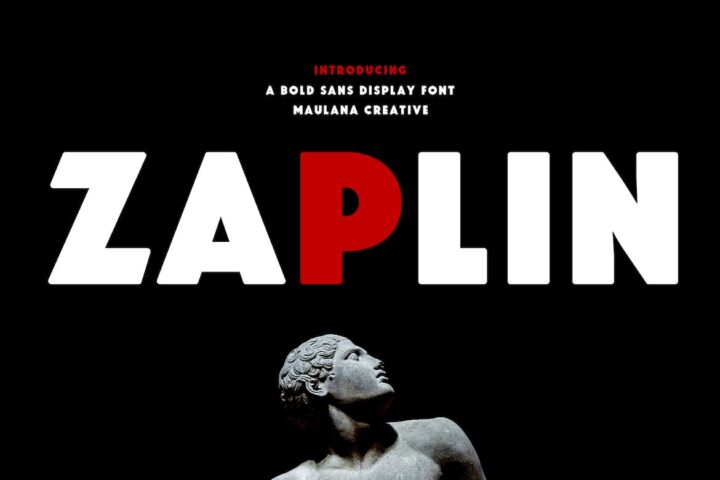
Zaplin Display Font
Zaplin is an All Caps sans serif Display font. With bold consist stroke, strong character with a bit of ligatures. To give you an extra creative work. Zaplin font support multilingual more than 100+ language. This font is good for logo design, Social media, Movie Titles, Books Titles, a short text even a long text letter and good for your secondary text font with sans or serif. Make a stunning work with Zaplin font.